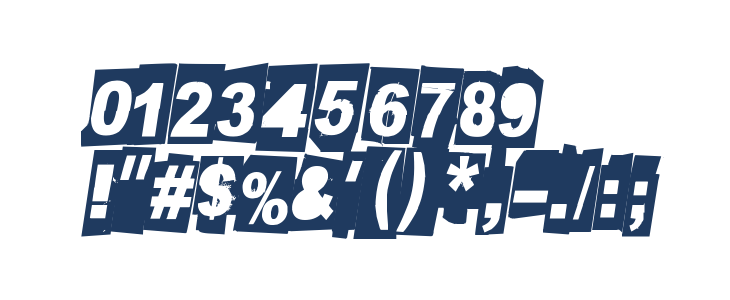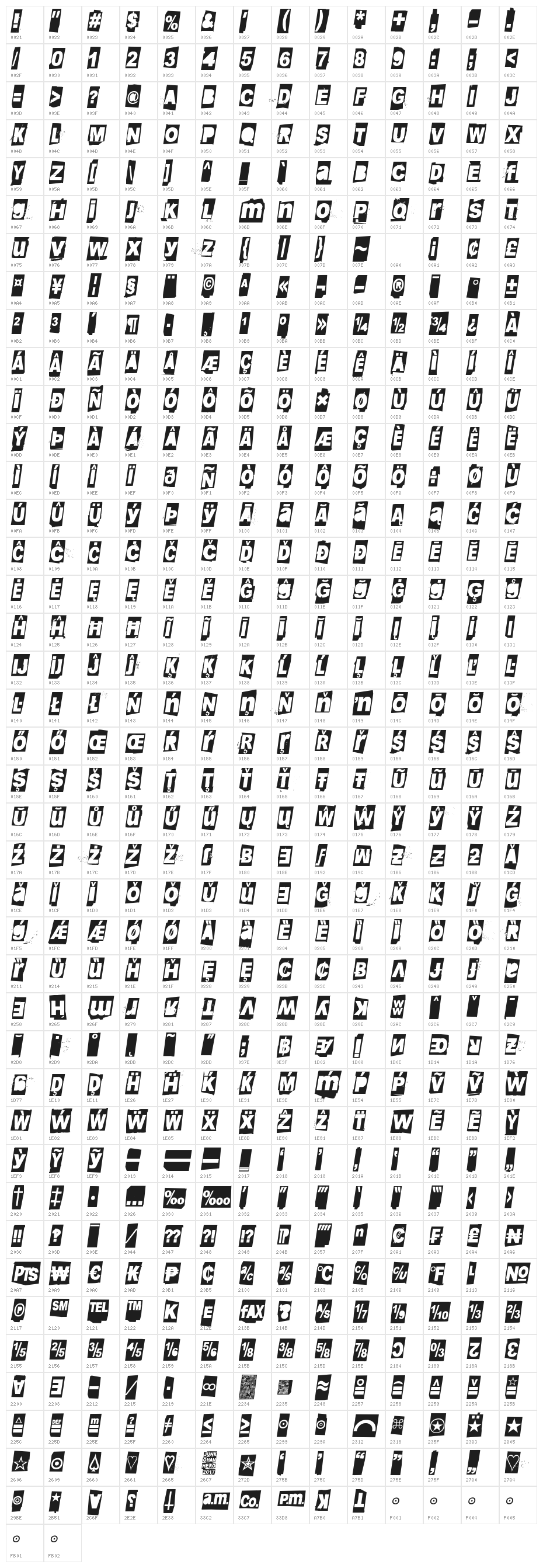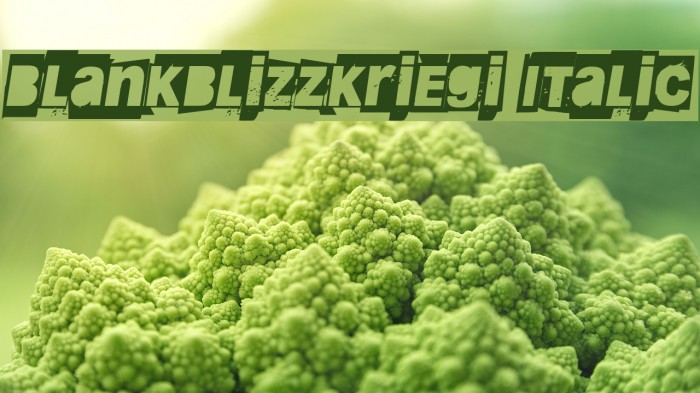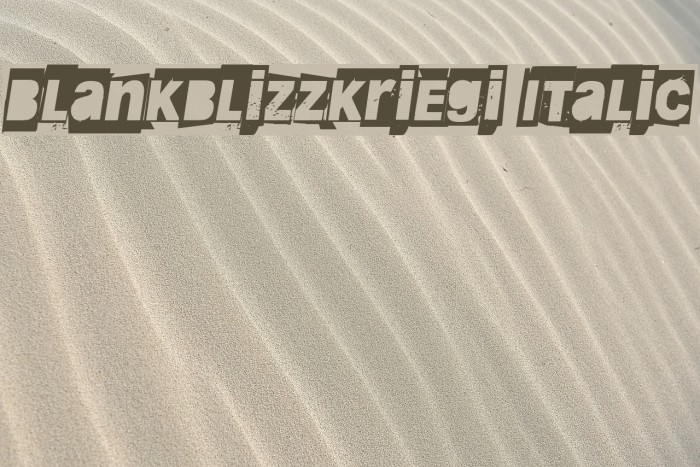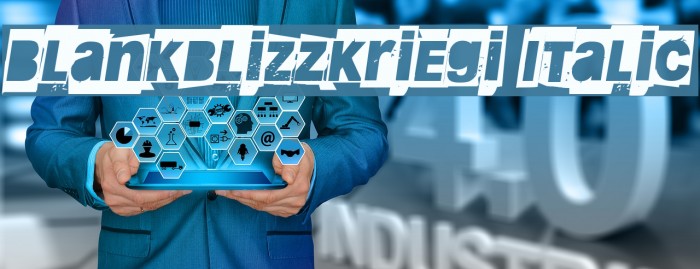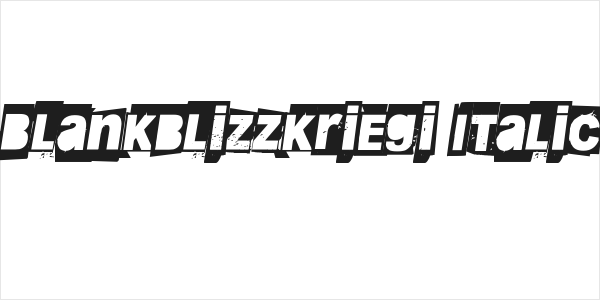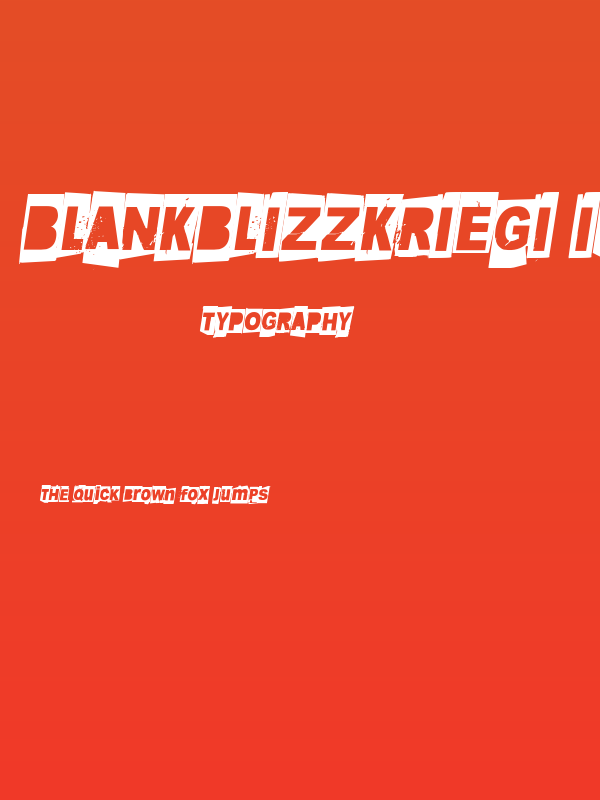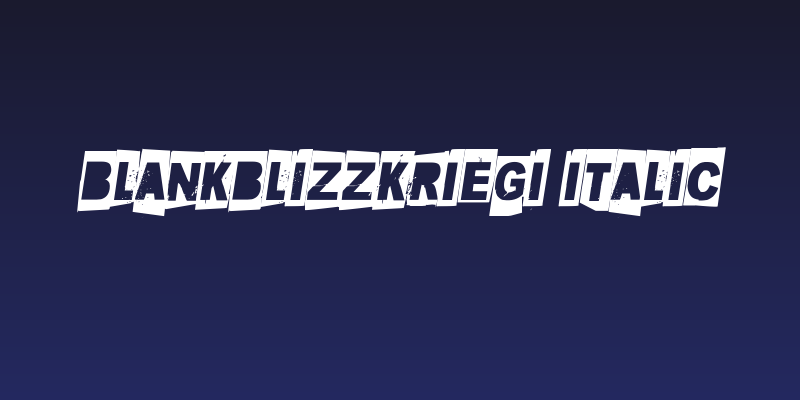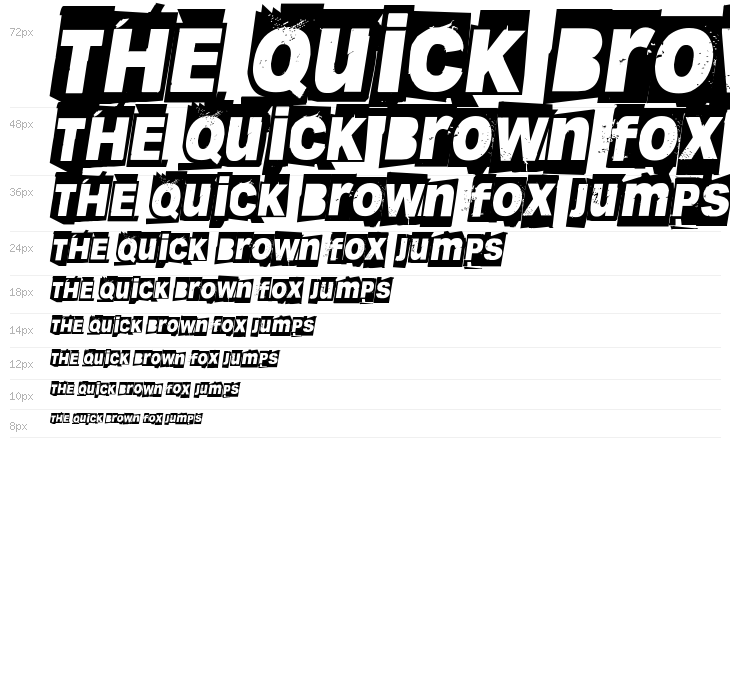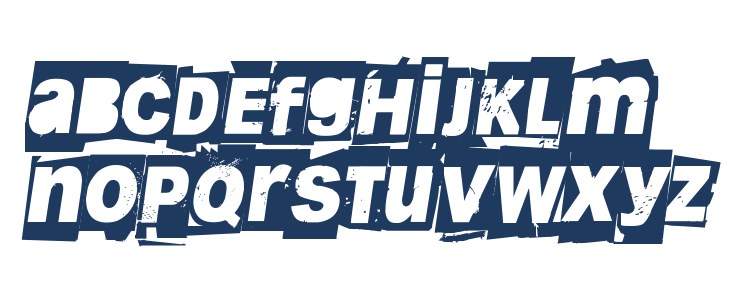
Blankblizzkriegi Italic Font
Blankblizzkriegi Italic Description
This font exhibits a bold, distressed style with a strong urban and grunge aesthetic. The characters are heavily stylized with a rough, textured appearance, giving them a dynamic and edgy look. The uppercase and lowercase letters maintain a consistent weight, while the numbers and special characters follow the same rugged theme. The font's design is reminiscent of street art or graffiti, with a sense of movement and energy. Each character appears to be slightly tilted, enhancing the italicized effect and adding to the overall chaotic yet controlled feel. The font's unique style makes it stand out, suitable for projects that require a bold statement.
| Overall Style | Urban, Grunge, Edgy |
| Use Case | Logos, Posters, Headlines |
| Proposed Projects | Ideal for streetwear branding, music album covers, event posters, or any design needing an edgy, bold statement. |